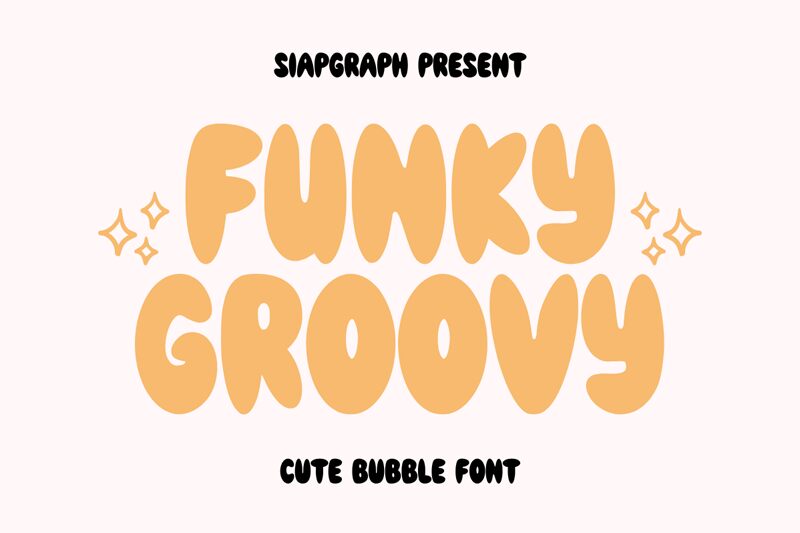
Funky Groovy font by Siapgraph is a free playful cartoon font with a youthful energy. A retro influence is apparent in its overall mood while it’s even more emphasized in characters like “a” and “t”. The font weaves in old-school vibes and the groovy visuals of the 80s and the 90s. Re-imagining the past and combining it with a contemporary appeal, this font creates a lighthearted tone.
Everyone loves to feel like a kid sometimes. In a professional marketing context, tapping into childlike feelings can bring back positive nostalgia for your audience. That is why we recommend Funky Groovy for food/beverage packaging, fashion, apparel, book covers, toys, posters, logos, and much more. Due to its informal style, its use is best suited for less serious industries and businesses.